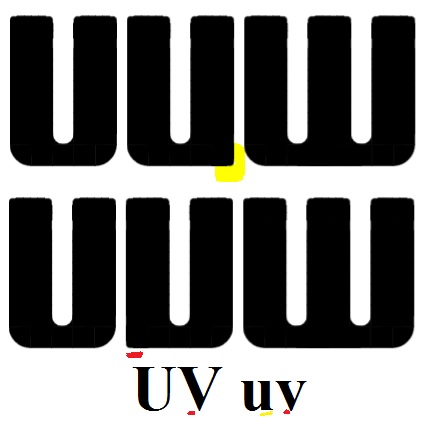
I really like this, I would welcome if it had the accented characters too and maybe one small change too. I think to easier distinct V, v from U, u when they are not next to each other the foot on V should be on other side. If it stays alone, it resembles U from other more traditional fonts.